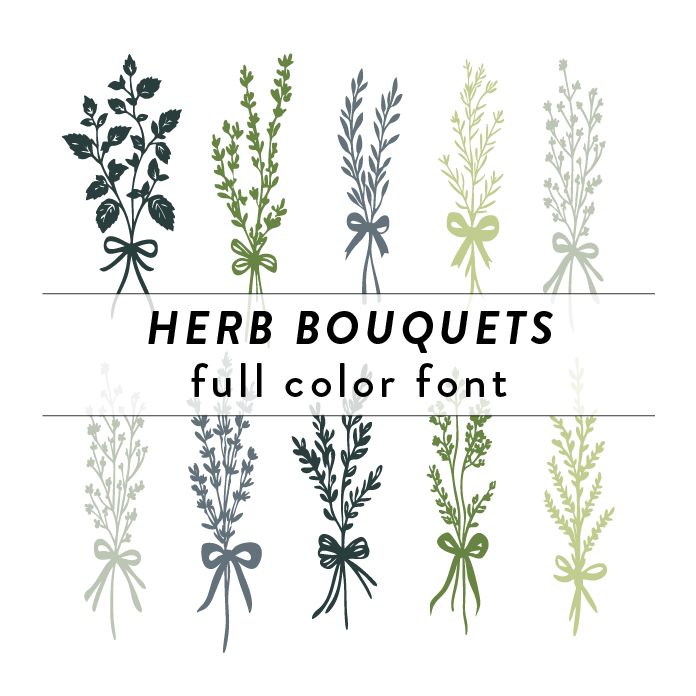
Herb Bouquets Full Color Font features intricate tree branches and leaves intertwined to create a whimsical and elegant design perfect for wedding invitations and engagement announcements. The font style is delicate and organic, adding a touch of nature to any project. This font is a OTF craft font that will appear in color only when used with the silhouette software.